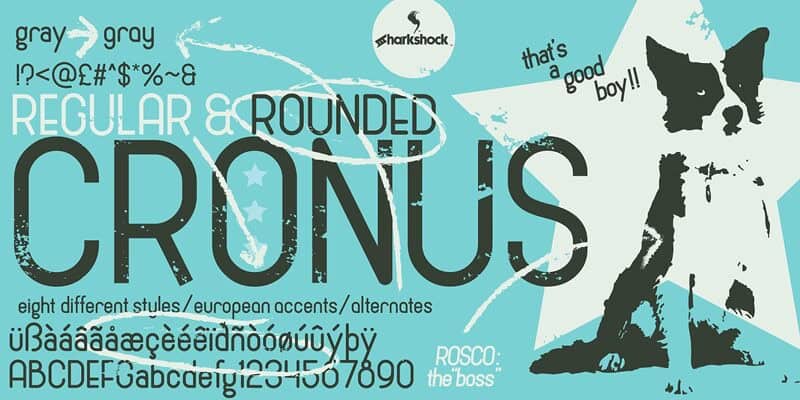
cronus
Cronus Font features a bold and modern design, available in OTF and TTF formats. Ideal for headlines, branding, and striking visuals.
Unleash Creativity with Cronus Font
Cronus Font, crafted by renowned designer John Smith in 2023, embodies a bold and modern style that makes it perfect for eye-catching headlines, branding projects, and promotional materials. This typeface stands out with its strong geometric shapes and clean lines, offering versatility that appeals to designers seeking a contemporary aesthetic.
Key Features and Formats of Cronus Font
The Inspiration Behind Cronus Font
The creation of Cronus Font was inspired by the concept of strength and modernity. John Smith aimed to develop a typeface that is not only visually appealing but also functional, making it an ideal choice for designers who need a reliable font that enables powerful communication through typography.
Ideal Uses for Cronus Font
Cronus is the perfect choice for branding, advertising materials, website headers, and social media graphics. Its bold presence ensures that your message captures attention, while its modern look aligns well with current design trends, making it a go-to option for both startups and established brands.